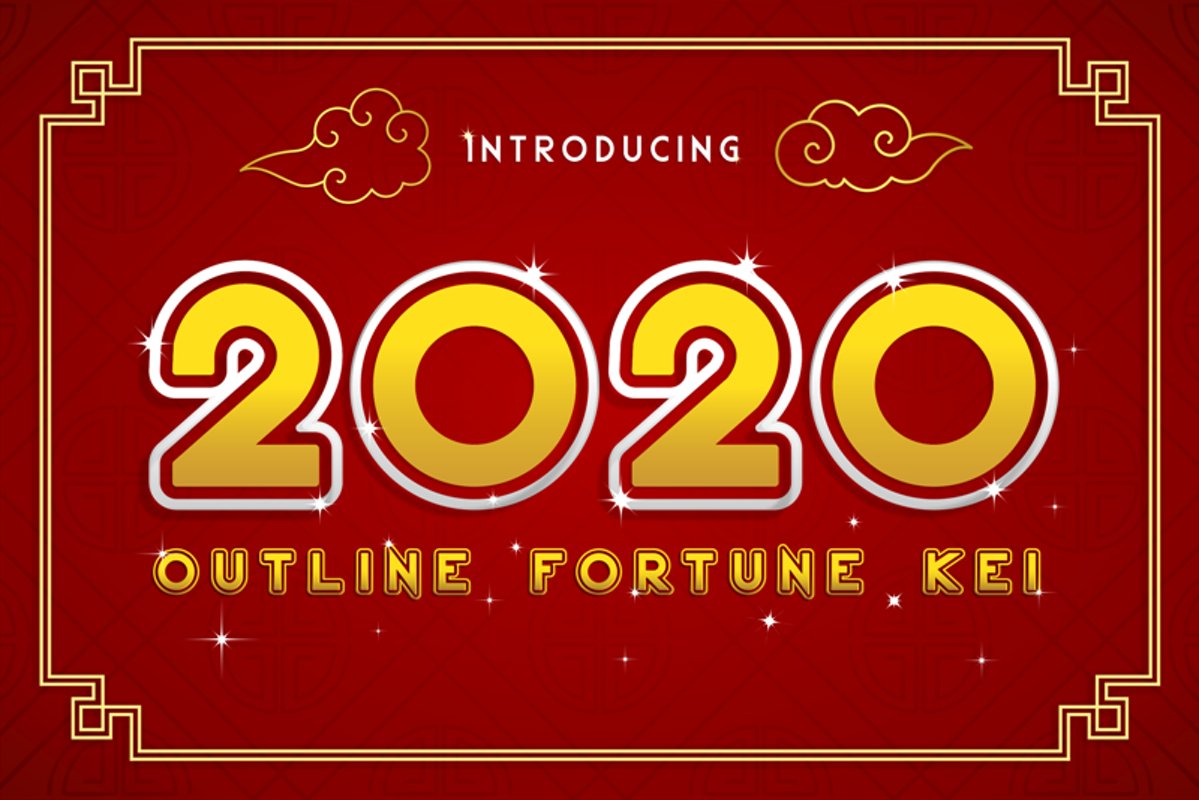
2020 Outline Fortune Kei
2020 Outline Fortune Kei font is a friendly and bold display font with a unique style. A new font looks with the feel of a new 2020 year full of fortune with an outline style, perfect for an extraordinary new year's project. It is perfectly suited for a wide variety of projects!